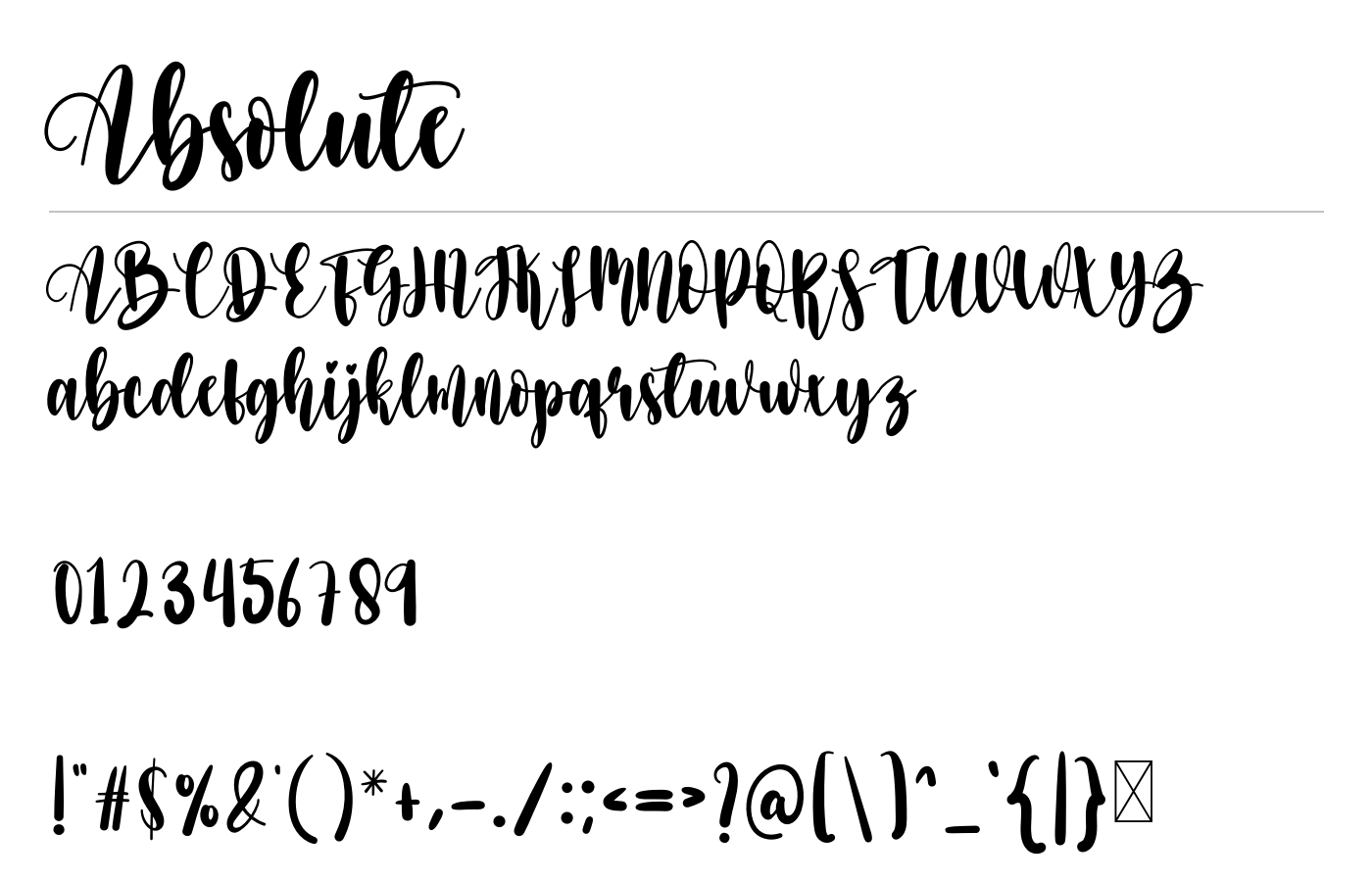
Absolute is a lively script font with bold, flowing strokes that combine a modern calligraphic style with playful charm. Its thick and thin contrasts, elegant swashes, and handwritten feel make it perfect for creative branding, invitations, and expressive headlines where a touch of personality and warmth is desired.
Absolute Font